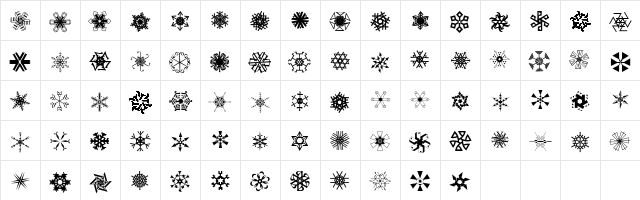
Complete P22 Snowflakes Regular glyph index. Displaying only characters natively supported by P22 Snowflakes Regular font.
P22 Snowflakes is a composed and adaptable typeface that performs quietly and consistently across a wide range of design contexts.